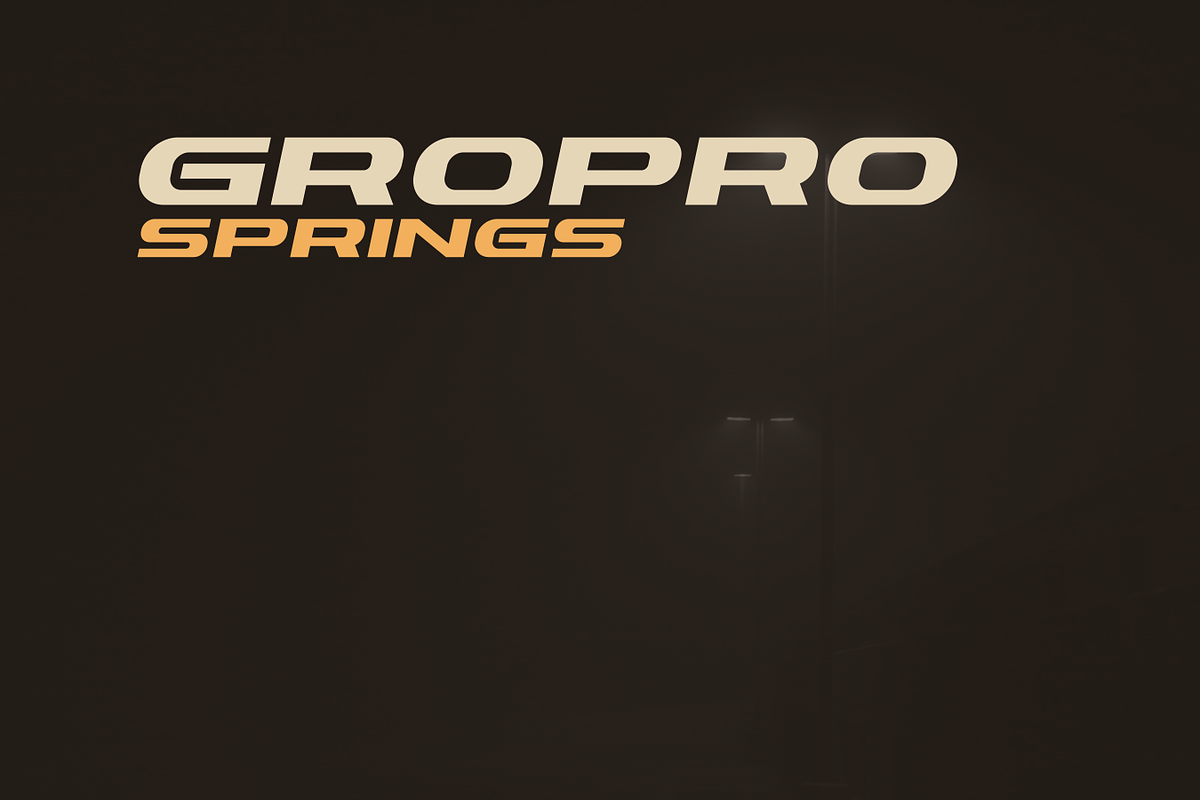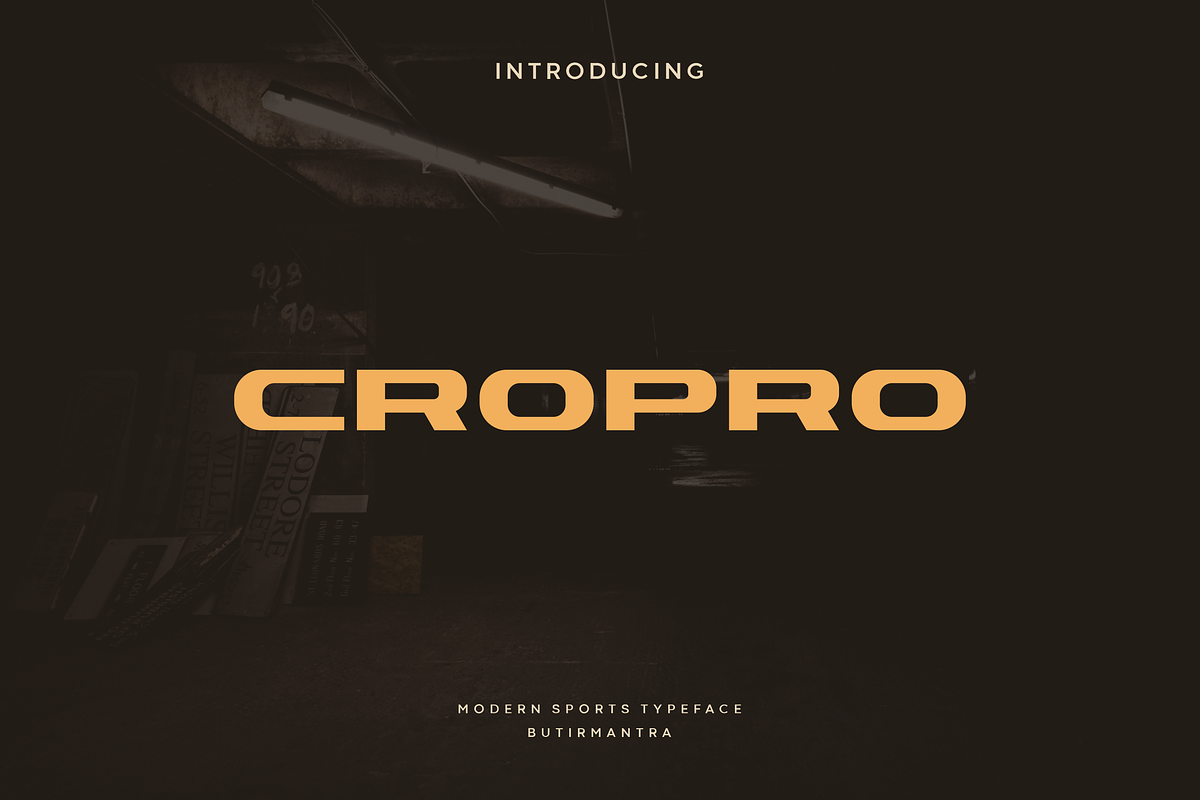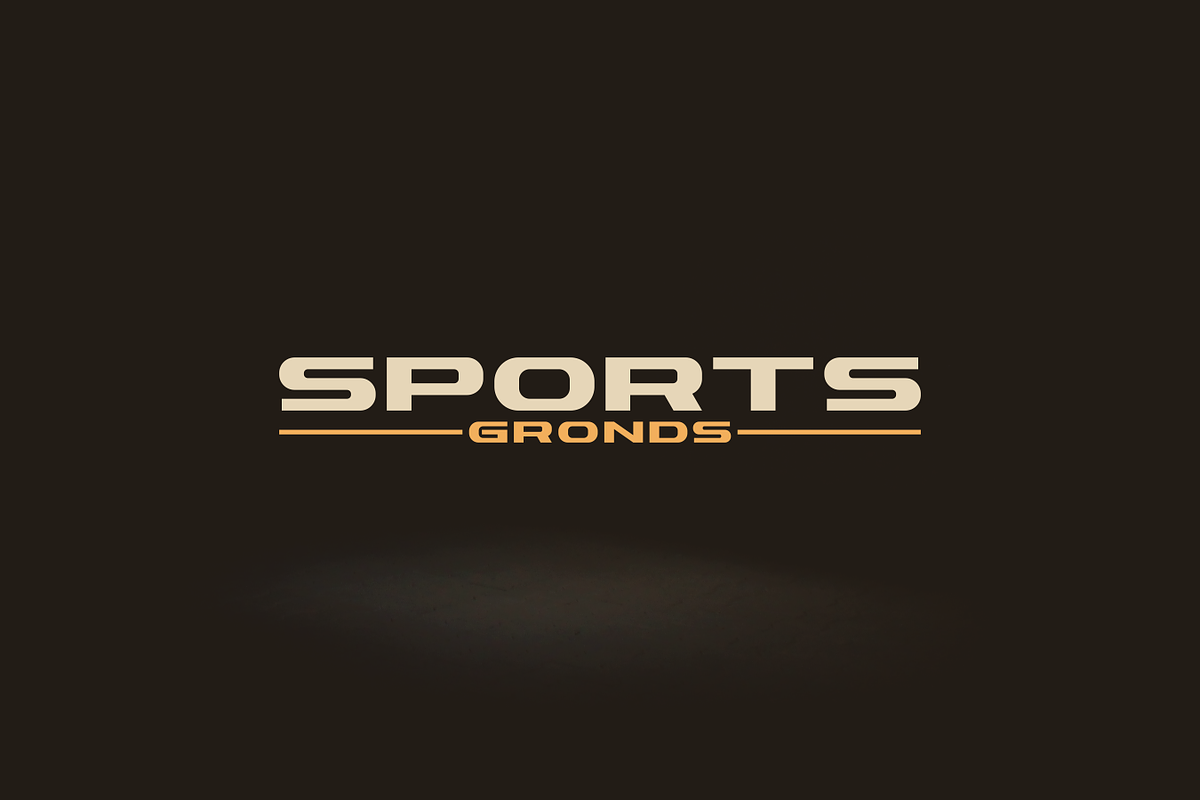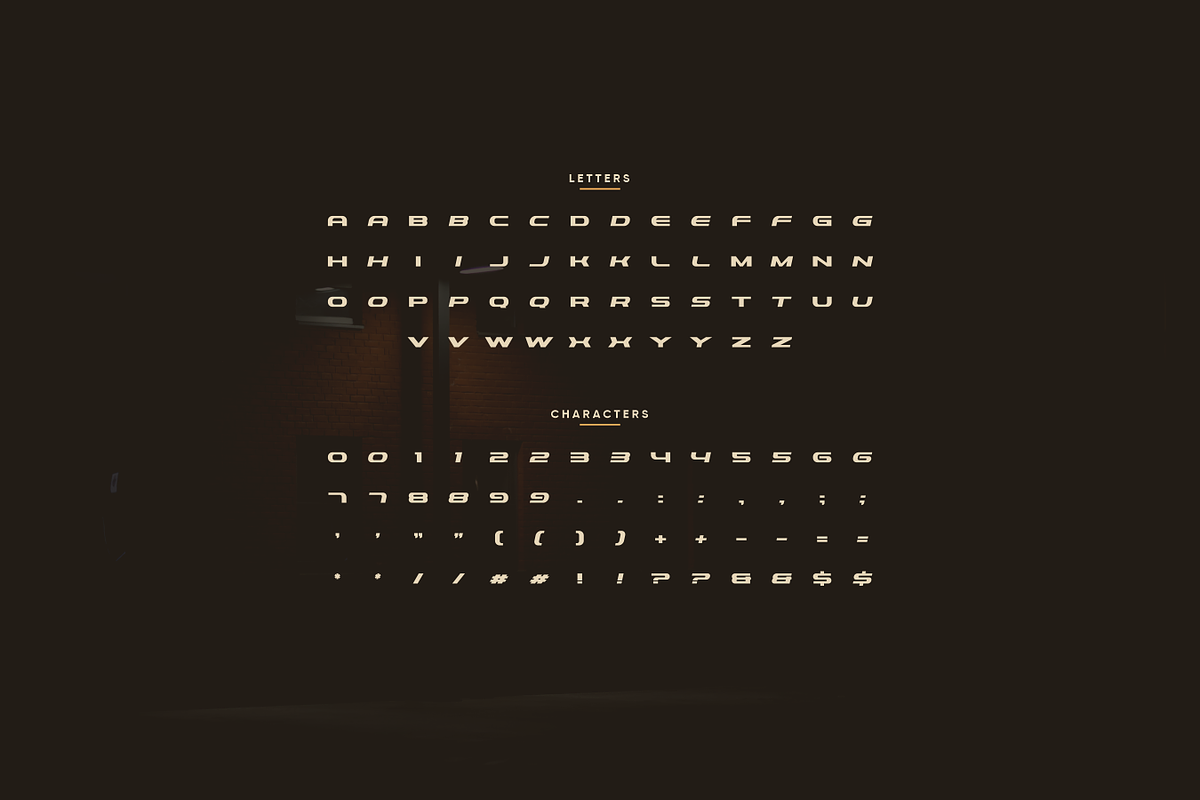
Cropro - Modern Sport Typeface
Cropro is a sports font, designed to draw attention and highlight any project that calls for a bold, powerful look, built with all caps to created a vibrant touch to your designs. Perfect for sports designs, logos, headlines, posters, games, book covers, titles and many other projects. Add this font to your creative ideas and watch how it makes it stand out!